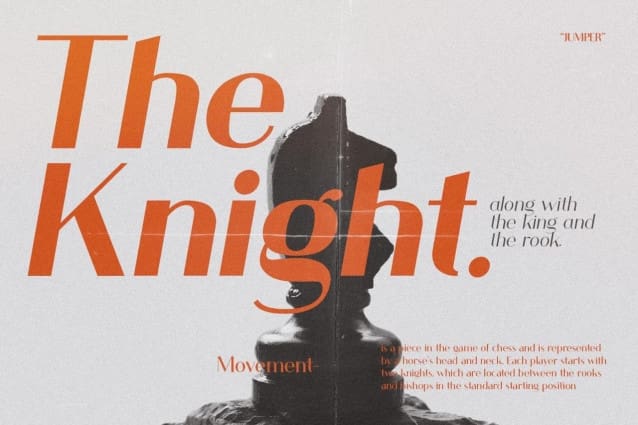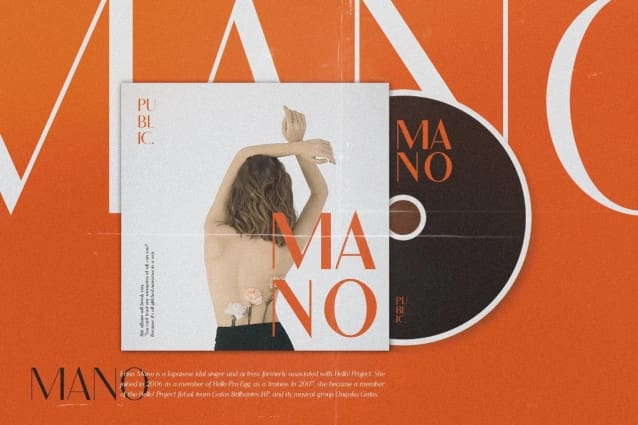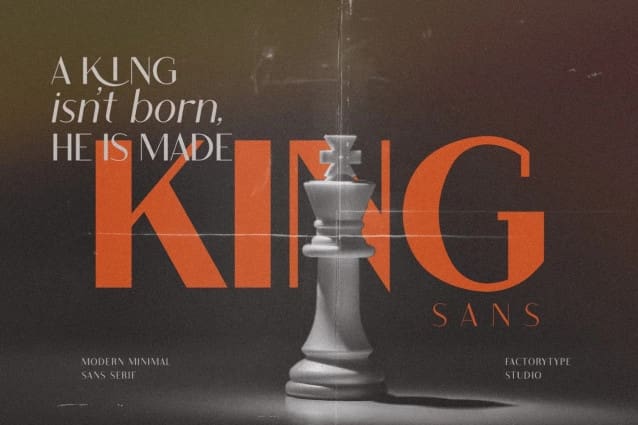
King Sans Typeface
King Sans Typeface is a stylish, modern sans serif font – and it’s completely FREE to download! Whether you’re looking for a logo, retro or modern branding, or any other design project, this typeface is the ideal choice. With its minimal and casual style, King Sans is sure to add a unique touch to your project. Get creative and download it today for free!
– 5 Weights
– 2 Styles (Regular and Italic)
– Basic Latin A-Z and a-z
– Numerals & Punctuation
– Stylistic Ligatures and Alternate glyps
– Multilingual Support for ä ö ü Ä Ö Ü …